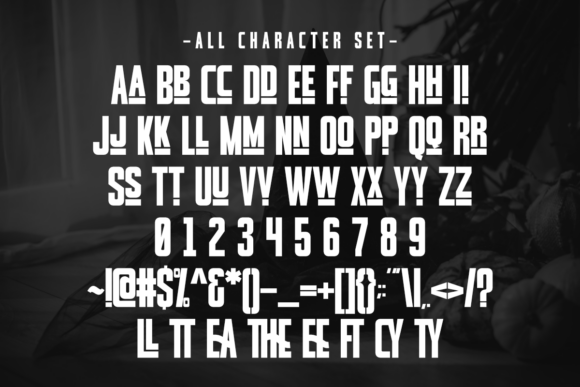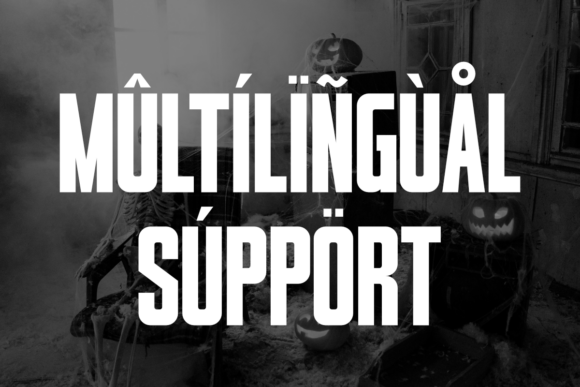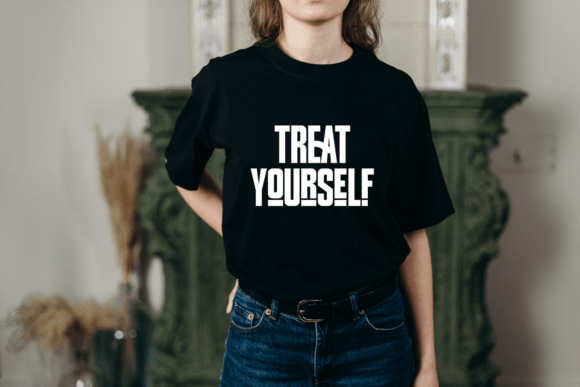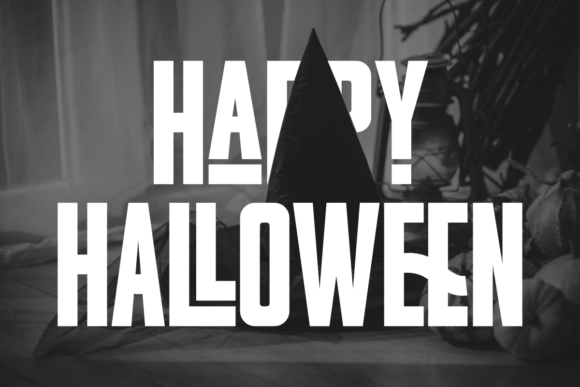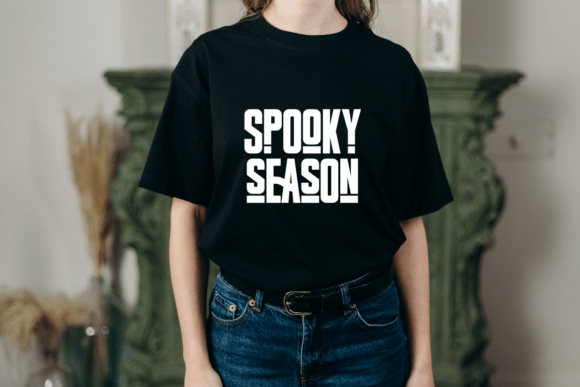
Unleash the Spooky Spirit with Halloween Font: A Modern Sans Serif for Creative Projects
As the spookiest time of the year approaches, designers and crafters are on the lookout for the perfect font to add a touch of eeriness to their creations. Look no further than the Halloween Font, a modern and clean sans serif font that’s perfect for T-shirt designs, POD, DIY projects, and laser cuts. This font is sure to cast a spell on your audience with its bold, condensed letterforms and unique, playful cuts and angles.
What Makes Halloween Font So Special?
Halloween Font is more than just a spooky font – it’s a versatile and sophisticated typeface that’s ideal for a wide range of creative projects. Its bold, condensed letterforms make it perfect for crafting eye-catching designs, while its unique cuts and angles add a playful touch that’s sure to stand out. Whether you’re designing T-shirts, creating DIY crafts, or working on a branding project, Halloween Font is the perfect choice.
Key Features of Halloween Font
- Modern and Clean Design: Halloween Font features a modern and clean sans serif design that’s perfect for creating sophisticated and spooky designs.
- Bold and Condensed Letterforms: The font’s bold, condensed letterforms make it perfect for crafting eye-catching designs that stand out.
- Unique Cuts and Angles: The font’s unique cuts and angles add a playful touch that’s sure to add a spooky spirit to your designs.
Perfect for Crafters and Designers
Halloween Font is perfect for crafters and designers who want to add a touch of spookiness to their creations. Whether you’re working on a T-shirt design, creating DIY crafts, or working on a branding project, this font is sure to inspire. Its versatility and sophistication make it ideal for a wide range of creative projects, from crafting and branding to laser cuts and more.
Why Choose Halloween Font?
There are many fonts to choose from, but Halloween Font stands out from the rest. Here are just a few reasons why:
- Unique Design: Halloween Font features a unique design that’s sure to stand out from the crowd.
- Easy to Use: Halloween Font is easy to use and comes with effortless access to all glyphs, swashes, and alternate characters.
- Versatile: The font is versatile and perfect for a wide range of creative projects.
Tips for Using Halloween Font
Here are a few tips for using Halloween Font in your creative projects:
- Pair with Other Fonts: Halloween Font pairs well with other fonts, so don’t be afraid to experiment with different combinations.
- Use for Headings: The font’s bold, condensed letterforms make it perfect for headings and titles.
- Add a Spooky Touch: Use Halloween Font to add a spooky touch to your designs, from T-shirt designs to DIY crafts.
Halloween Font is a modern and clean sans serif font that’s perfect for adding a touch of spookiness to your creative projects. Its bold, condensed letterforms and unique cuts and angles make it a versatile and sophisticated typeface that’s ideal for a wide range of designs. Whether you’re a designer or crafter, Halloween Font is sure to inspire your creativity and add a spooky spirit to your projects.